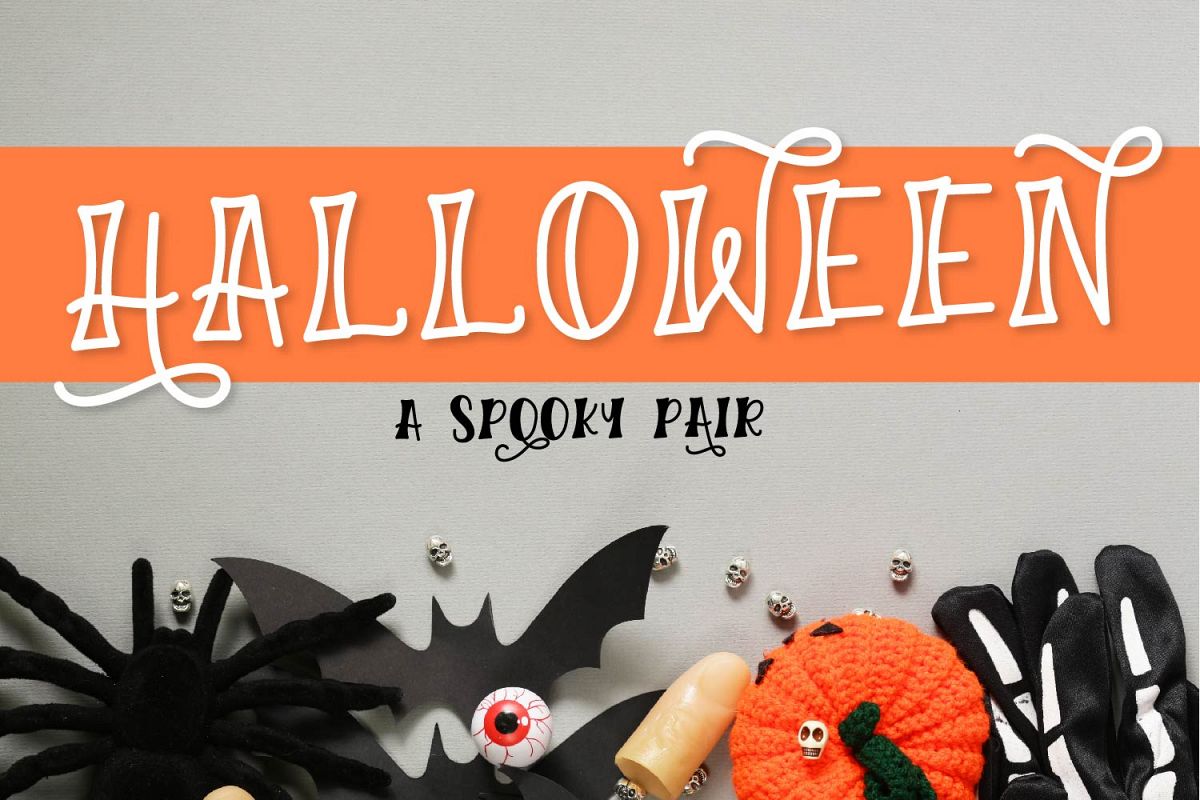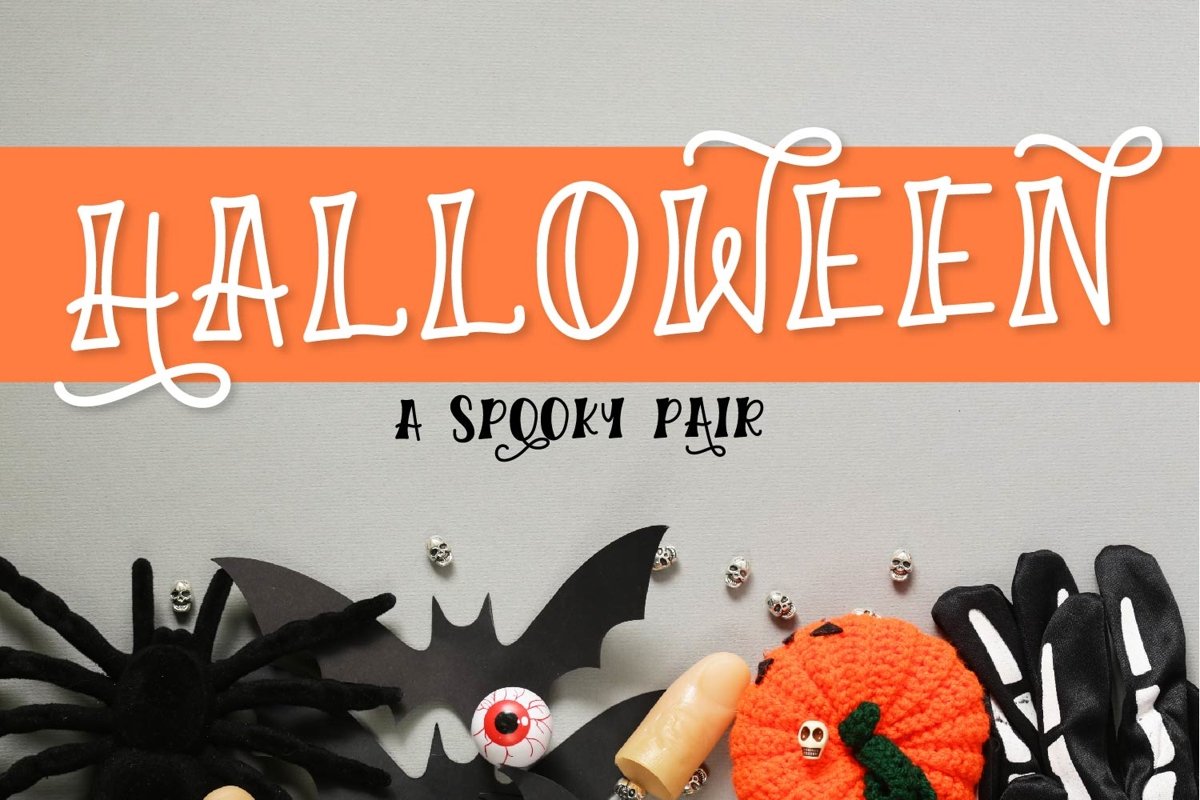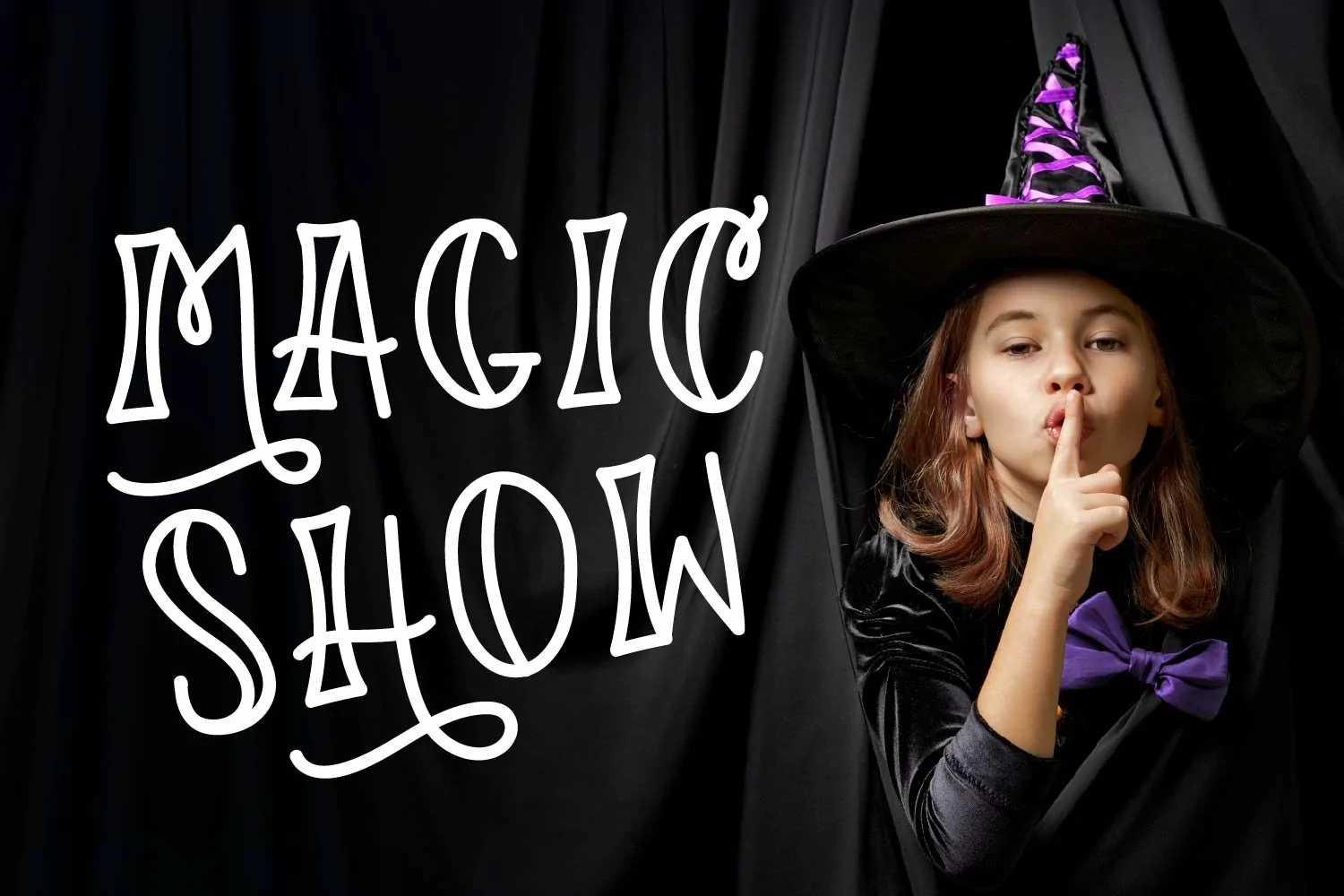
Halloween - A Spooky Halloween Duo!
This font does not include alternatives - instead this is an all caps font with the swoosh-y extra's on the other case set. :) This was you can easily mix & match!